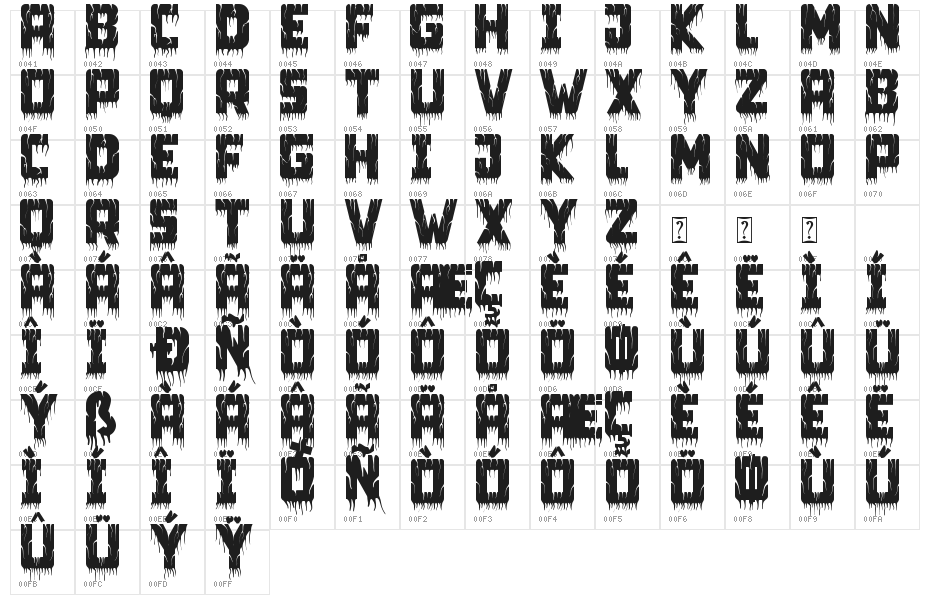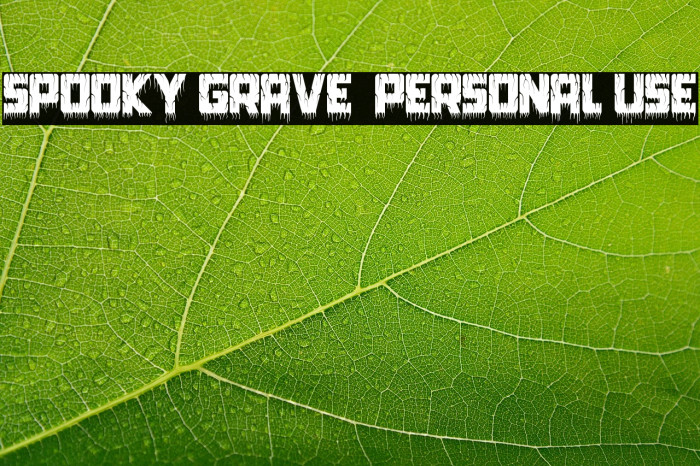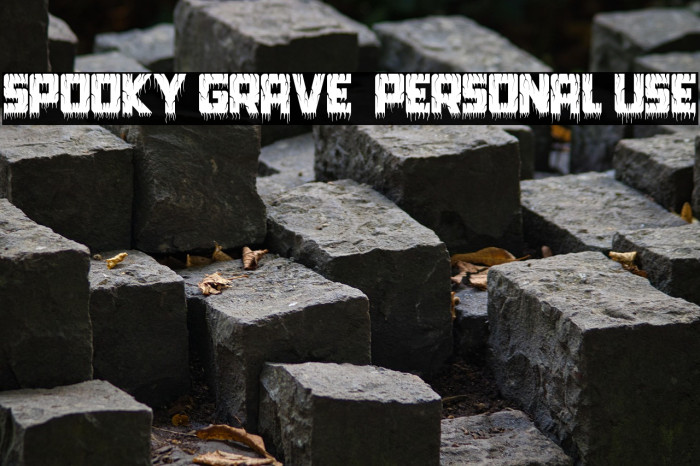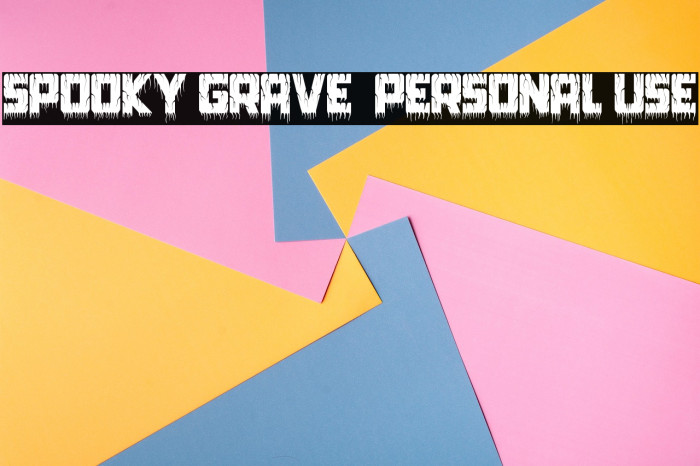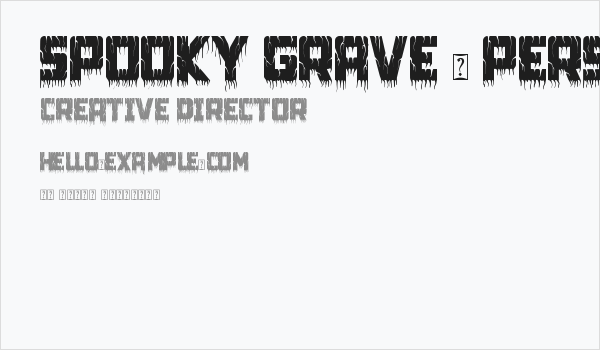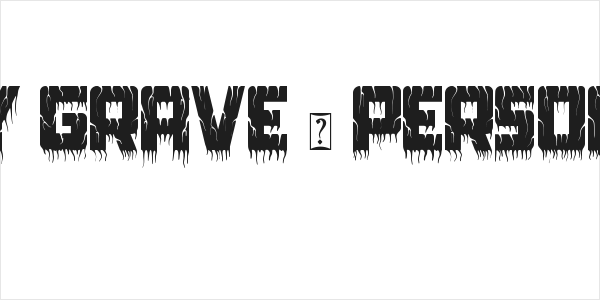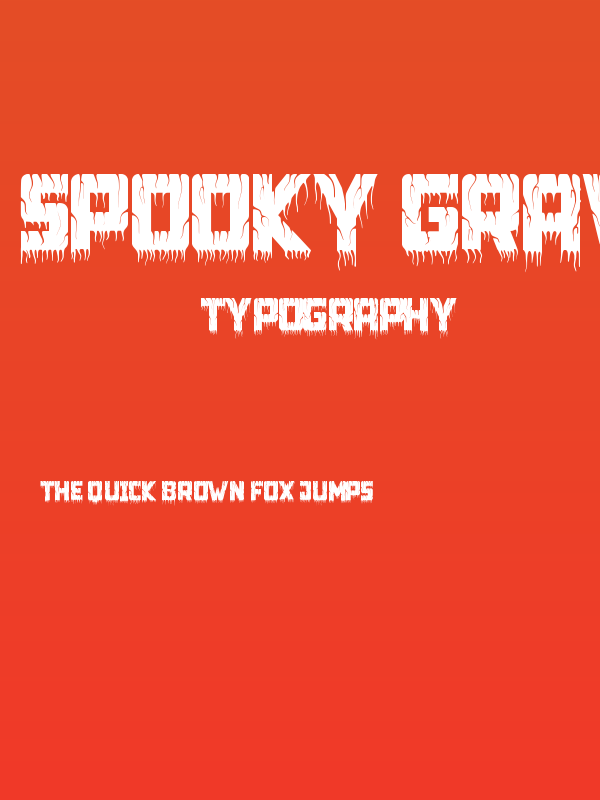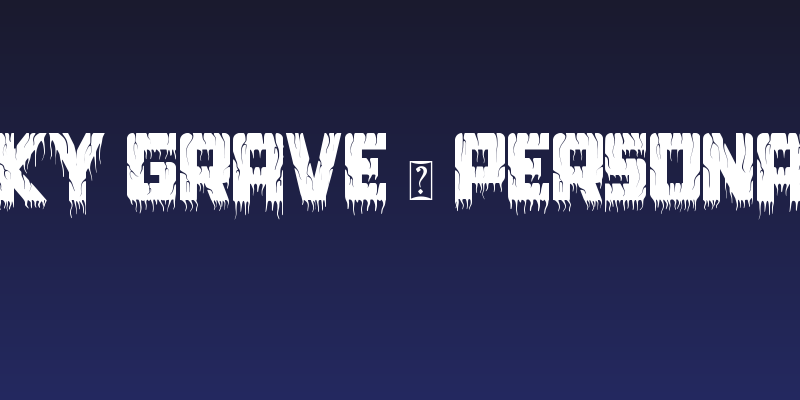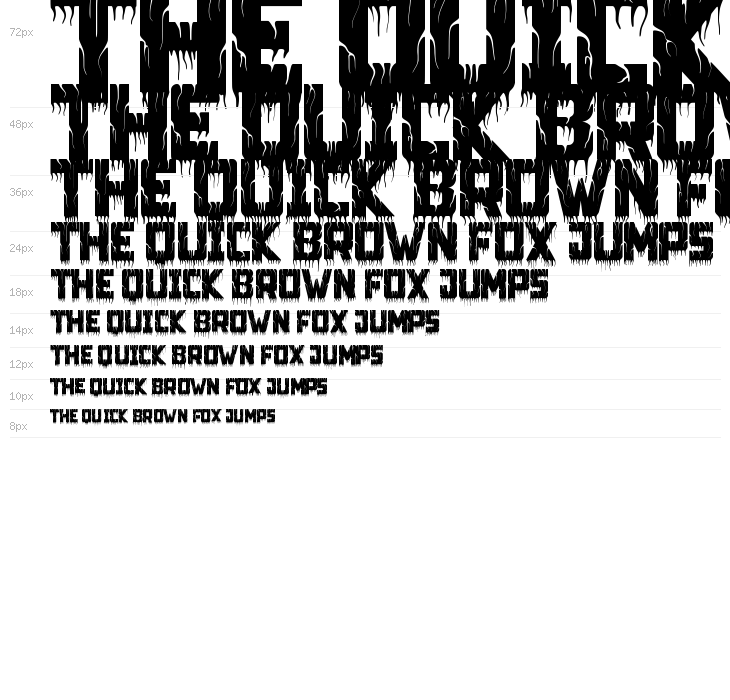
Spooky Grave - Personal use Font
Spooky Grave - Personal use Description
This font features a chilling, horror-inspired design with letters that appear to be dripping, reminiscent of melting wax or blood. The bold, jagged edges and irregular shapes contribute to its eerie and unsettling appearance. Each character is uniquely crafted to enhance the spooky theme, making it ideal for Halloween or horror-themed projects. The uppercase and lowercase letters maintain a consistent style, while the numbers and special characters follow suit with the same dripping effect. This font captures a sense of dread and mystery, perfect for creating a haunting atmosphere.
| Proposed Projects | Ideal for Halloween invitations, horror movie posters, haunted house flyers, and spooky-themed merchandise. |